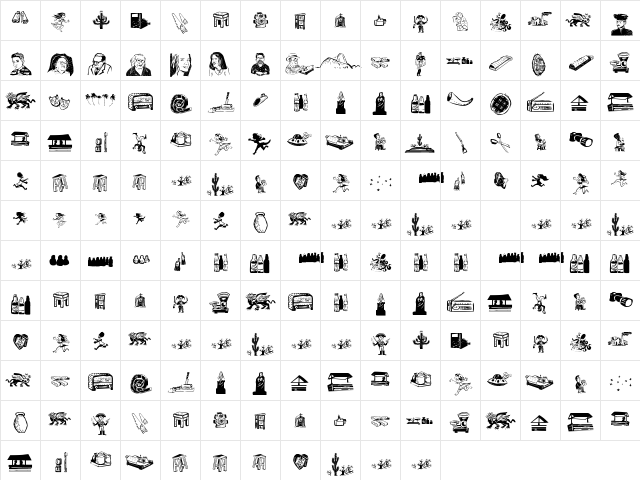
Cordel de Mangai Regular Font Preview
Cordel de Mangai Regular
Cordel de Mangai Regular Font Details
Design Context for Cordel de Mangai Typeface
Cordel de Mangai is a composed and adaptable typeface that performs quietly and consistently across a wide range of design contexts.
Pro Tip: Pair Cordel de Mangai with a font of contrasting weight or personality to build a more expressive typographic hierarchy.